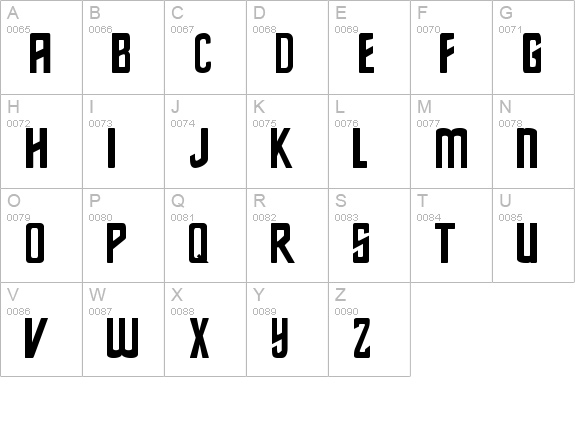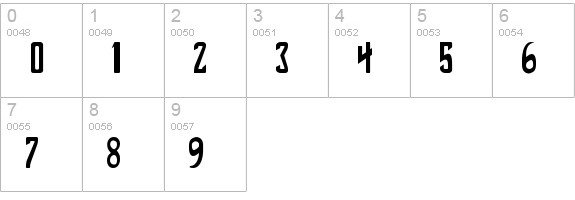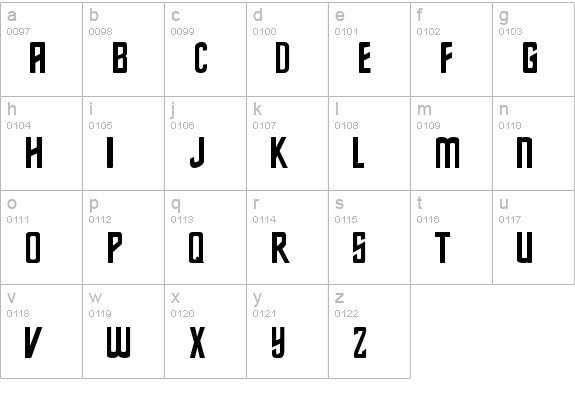
Star Series Font Details
Star Series font is a captivating and versatile typeface that will make your designs shine like the brightest stars in the night sky. With its unique and modern design, this font is perfect for a wide range of projects, including logos, posters, headlines, and more. The Star Series font features a harmonious balance between clean lines and stylish curves, creating a visually stunning and highly legible typeface. Its sleek and sophisticated appearance adds a touch of elegance to any design, while still maintaining a sense of playfulness and creativity. One of the best things about the Star Series font is that it is free! Yes, you read that right - this incredible font is freely available to download at FontsMarket.com. Whether you are a professional designer or a hobbyist, you can now easily access and use this font in your projects without any cost. Downloading the Star Series font from FontsMarket.com is a breeze. Simply visit the website, search for the font, and with just a few clicks, it will be yours to use and enjoy. The font is available in multiple formats, making it compatible with a variety of design software. The Star Series font is designed with versatility in mind, offering a wide range of weights and styles. Whether you need a bold and impactful headline or a delicate and elegant script, this font has got you covered. It allows you to effortlessly create different moods and atmospheres, adding depth and personality to your designs. In addition to its aesthetic appeal, the Star Series font also boasts excellent readability, ensuring that your message is delivered with clarity and precision. Its clean and crisp letterforms make it easy for your audience to read and understand, even at smaller sizes. So why wait? Start exploring the endless possibilities that the Star Series font has to offer. Download it for free at FontsMarket.com and let your creativity soar to new heights. Whether you are designing for print or digital media, this font will undoubtedly elevate your projects and make them truly stellar.